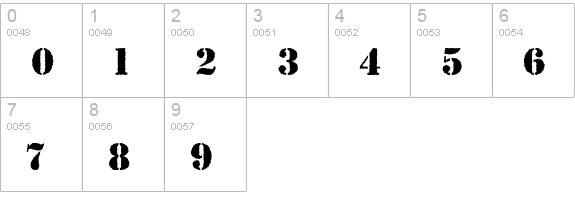
Stencil Antique MN Font Details
Stencil Antique MN font is a classic typeface that exudes a sense of nostalgia and sophistication. Its bold and distinctive stencil design makes it perfect for a variety of projects, from vintage-inspired posters to modern branding. The font's timeless appeal and unique style set it apart from other stencil fonts, making it a versatile choice for any designer. What's even better is that Stencil Antique MN font is available for free download at FontsMarket.com. This means that you can easily access this elegant font to elevate your designs without any cost. Whether you're working on a personal project or a professional assignment, Stencil Antique MN font is a valuable addition to your font library. Download it today and start creating stunning visuals that will leave a lasting impression.